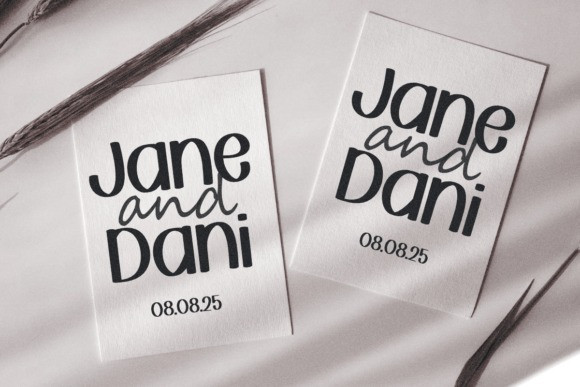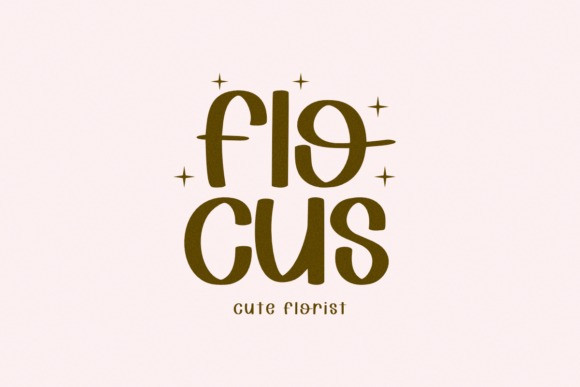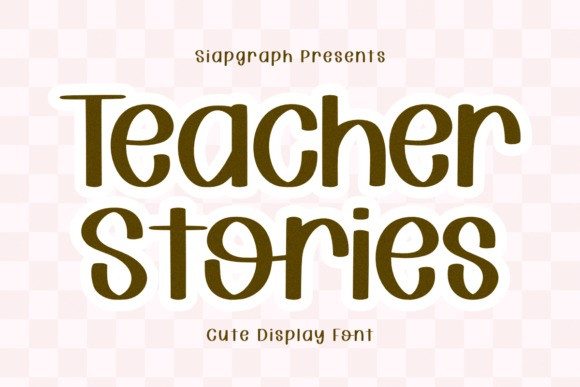
Teacher Stories Font
Teacher Stories Font is a playful and heartwarming display font designed to celebrate teachers, classrooms, and all the little joys of going back to school. Its rounded, cute letterforms make it perfect for cheerful and welcoming designs.
Whether you’re designing sublimation shirts for teachers, Cricut classroom signs, or printable worksheets for young learners, Teacher Stories adds a personal and fun touch. Ideal for Etsy shops selling teacher appreciation gifts, school supply labels, bulletin board displays, and back-to-school t-shirts.